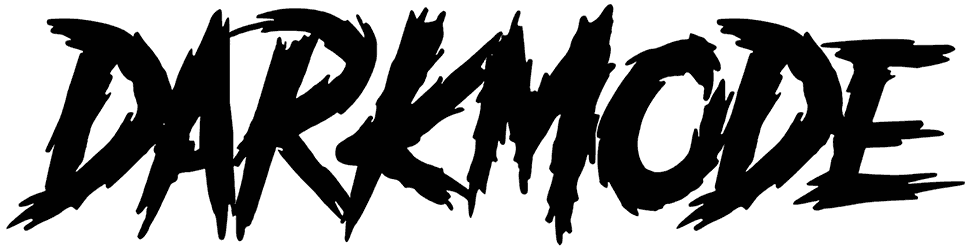
Darkmode Font
Your digital creations would have a more terrifying look and feel if you used Darkmode, which is a fancy horror font that can generate an aesthetic impression.
In advertisements, flyers, fashion, and all other Halloween-themed items, this jagged font is chosen for the frightening appearance it gives off. If you enjoy overcoming obstacles, you should give it a shot because the outcome will knock your client’s head clean off.
Darkmode Display Font
Darkmode was inspired from gothic, scary, protest, and horror nuance. Combine with hand drawn brush who make the typeface looks very instant and messy.Uses for film, quotes, cover book, title, cover album, logo, clothing, invitation, event, labels, poster, etc.